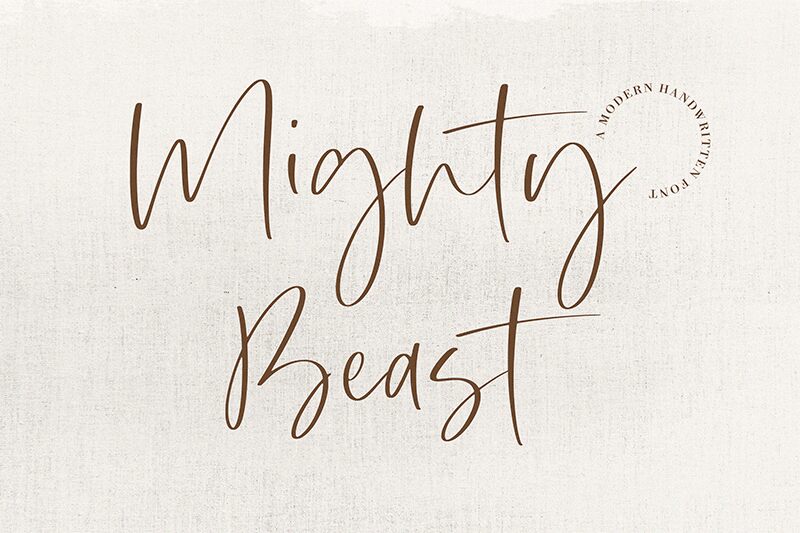
Mighty Beast
Mighty Beast, crafted by Timur Type, exudes a personal touch with its handwritten style that invites warmth into any design. It flourishes with elegant strokes that seem to dance across the page, reminiscent of an artist's swift brushwork. This light font possesses a delicate charm, yet it stands out with its confident and fluid movement.
Its aesthetic appeal lies in its ability to convey intimacy and individuality, making it ideal for invitations, branding projects, and personalized stationery where a touch of human presence is desired. With Mighty Beast, any project can capture the essence of handcrafted artistry while maintaining a polished look that resonates with contemporary tastes.